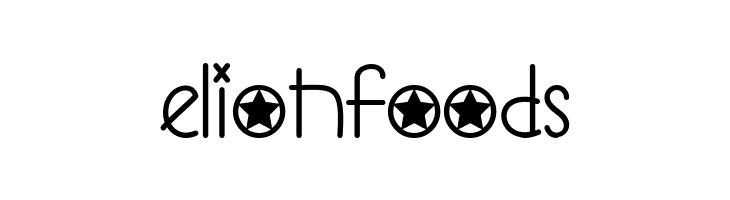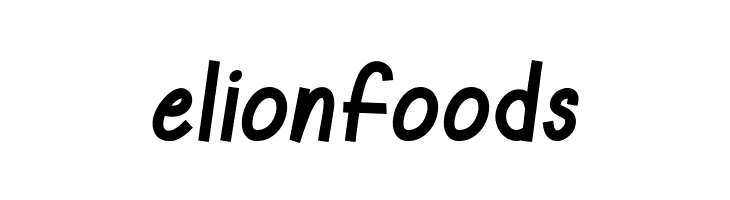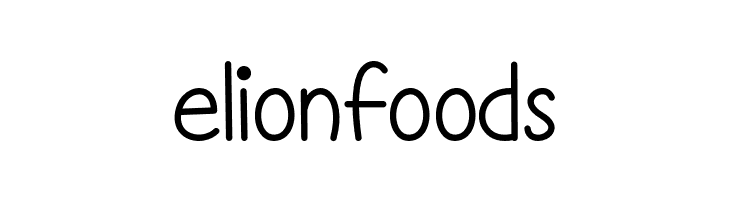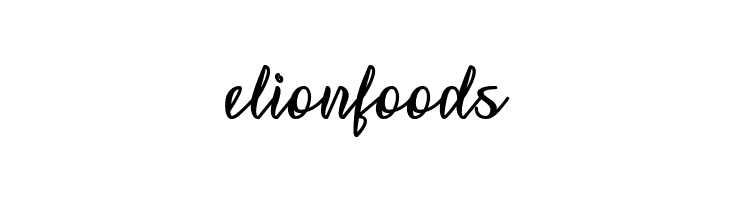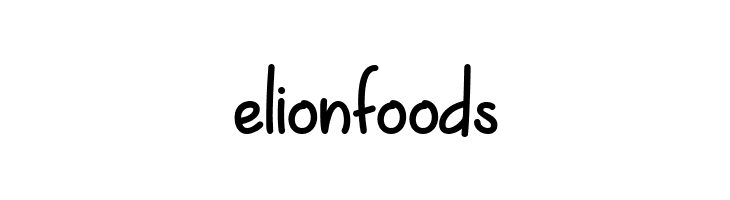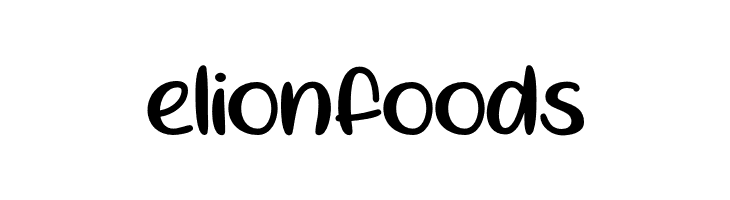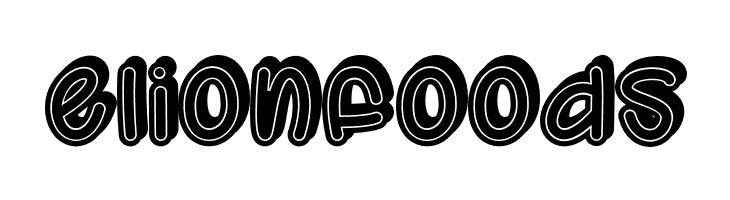
A playful, quirky font with circular accents and star motifs, perfect for creative projects.
A playful, handwritten-style font with bold, slanted characters.
A playful, hand-drawn font with rounded, friendly characters.
An elegant calligraphy font with fluid, interconnected strokes and ornate flourishes.
A graceful script font with flowing, interconnected letters and elegant curves.
A playful, handwritten font with smooth, rounded edges and a friendly appearance.
A playful, rounded font with a whimsical and creative style.
A playful, handwritten font with smooth, rounded edges and a casual style.
A bold, playful font with a thick outline and cartoonish style.